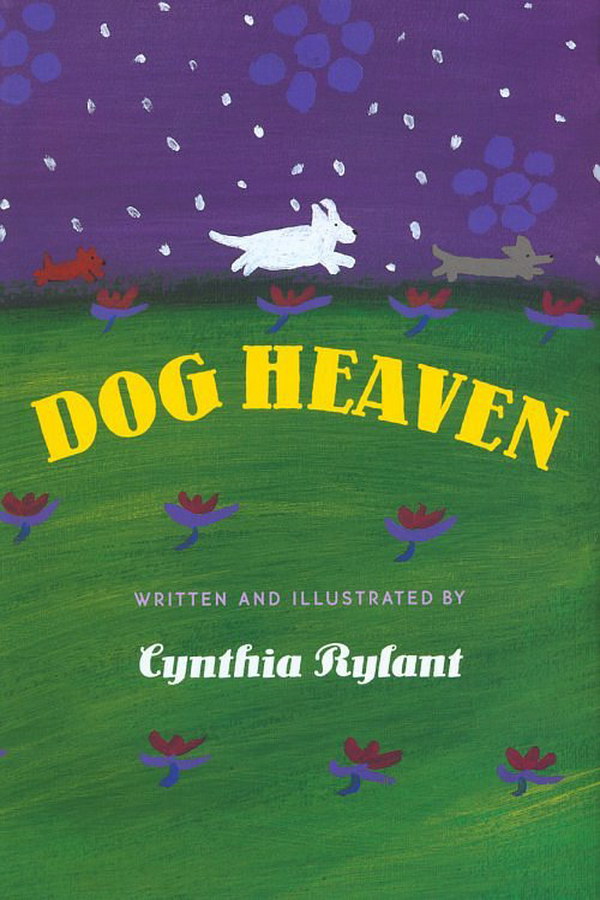
Dog Heaven Font
BookDog Heaven by Cynthia Rylant is a children's book that tells the story of what happens to dogs when they pass away. Dog Heaven title lettering appears to have used a display typeface Lo-Type created by Louis Oppenheim and published by Berthold in 1914.
Oppenheim named the font using his own initials which he also used to sign his work. It is likely that the book title is set in Lo-Type Medium and the author name is set in Lo-Type Medium Italic. You can download and view more information about it here.